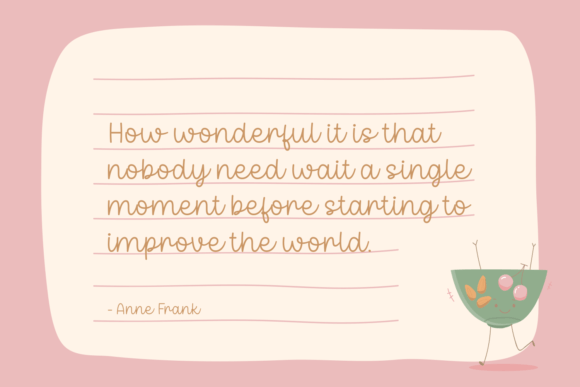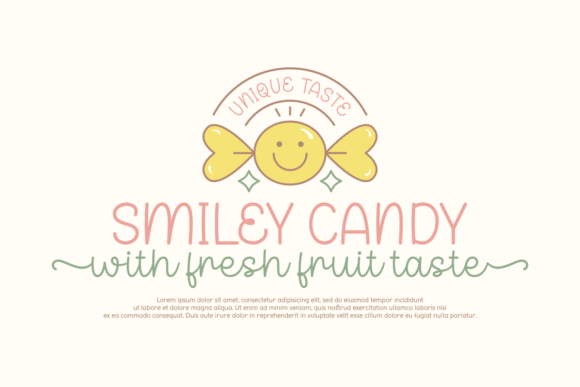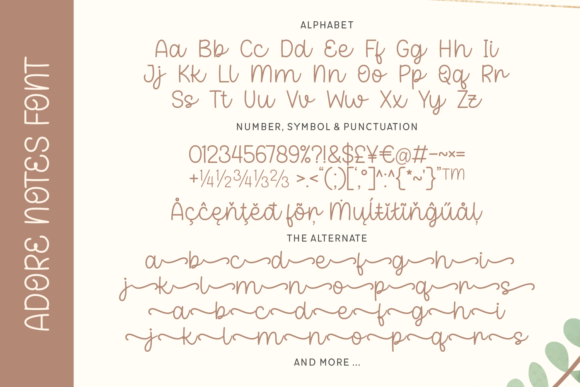
The Elegance of Adore Notes Font: A Designer’s Delight
I’ll never forget the time I was working on a wedding invitation project, and my client asked for a font that exuded elegance and sophistication. I scoured the internet, tried out countless fonts, but nothing seemed quite right. That was until I stumbled upon Adore Notes Font. Its beautiful, monoline script letters immediately caught my eye, and I knew I had found the perfect fit. In this article, I’ll share my experience with Adore Notes Font, its features, and how to make the most of it in your designs.
A Beautiful Monoline Script Font
Adore Notes Font is a stunning monoline script font that boasts seamless, continuous strokes, giving it a delicate and flowing appearance. Its minimalist style makes it perfect for designs that require a touch of refinement, such as invitations, branding, and more. The font’s elegant letterforms create a sense of fluidity and grace, making it a great choice for designers, crafters, and creative hobbyists.
Here’s what I love about Adore Notes Font:
- ✨ Elegant and sophisticated design
- ✅ Seamless, continuous strokes for a fluid look
- 💫 Perfect for designs that require refinement, such as invitations and branding
- 👍 Highly legible, even at smaller font sizes
As for quirks or limitations, I’ve noticed:
- 🤔 Some letters may require manual kerning for optimal spacing
- ⚠️ Limited availability of stylistic alternates, but still offers a range of OpenType features
Adore Notes Font was designed with elegance and sophistication in mind. Its creator aimed to craft a font that would evoke a sense of refinement and poise, perfect for designs that require a touch of luxury. The font’s seamless, continuous strokes were inspired by traditional calligraphy, giving it a timeless and classic feel.
| What is Adore Notes Font? | Adore Notes Font is a beautiful monoline script font that exudes elegance and sophistication through its seamless, continuous strokes. |
| Is Adore Notes Font suitable for body text? | While Adore Notes Font is highly legible, it’s best suited for headings, titles, and short paragraphs. For body text, consider using a sans-serif font for better readability. |
| Does Adore Notes Font support OpenType features? | Yes, Adore Notes Font supports OpenType features, including stylistic alternates, glyphs, and more. This allows for greater flexibility and customization in your designs. |